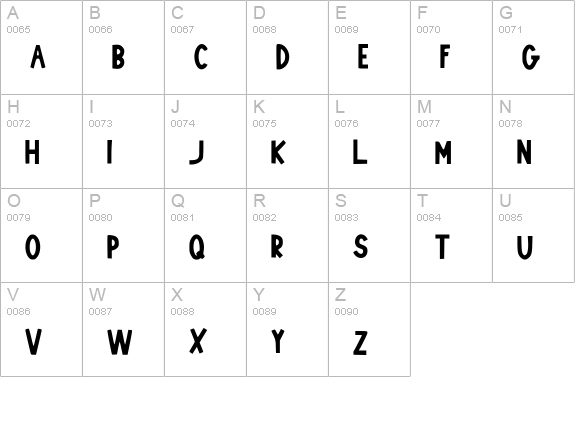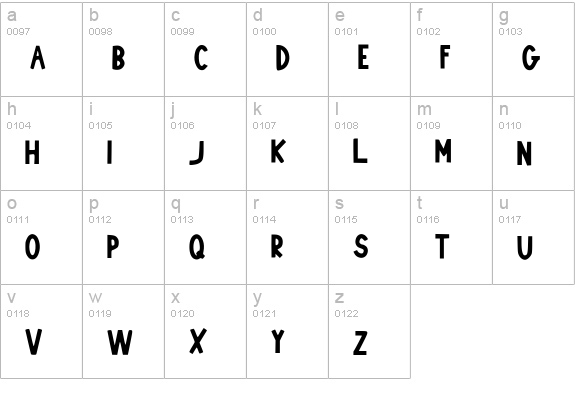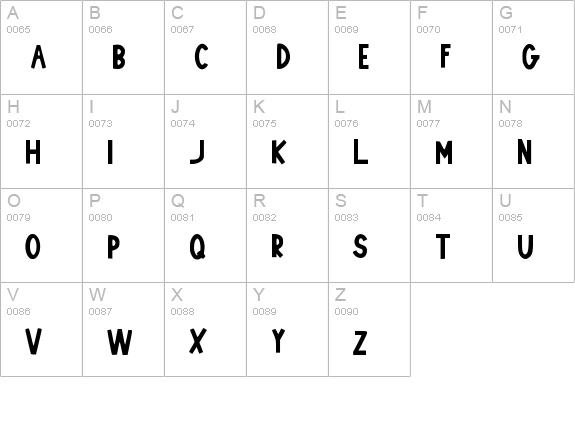
Fonty_McFonterson Font Details
Introducing Fonty_McFonterson, a delightful and versatile font that will bring a touch of style and sophistication to your creative projects. With its sleek and modern design, this font is perfect for everything from logo designs to branding materials, websites, and more. Fonty_McFonterson offers a wide range of uppercase and lowercase characters, as well as numerals, punctuation, and special symbols, ensuring that you have all the tools you need to bring your vision to life. Whether you're designing a sleek and professional corporate identity or aiming for a more playful and whimsical aesthetic, this font has got you covered. But what truly sets Fonty_McFonterson apart is that it is not only visually stunning, but also free! That's right, this exceptional font is freely available to download at FontsMarket.com. Now, you can elevate your design projects without breaking the bank. It's the perfect choice for budget-conscious designers, freelancers, and small businesses who want to make a big impact. The versatility of Fonty_McFonterson knows no bounds. It can effortlessly adapt to any design style, making it a must-have for both seasoned professionals and newcomers to the design world. Its clean and legible letterforms make it easily readable in both print and digital media, ensuring that your message is delivered with clarity and impact. So why wait? Download Fonty_McFonterson today from FontsMarket.com and take your design game to the next level. With its stunning aesthetics, wide range of characters, and free availability, this font is sure to become your go-to choice for all your design needs. Don't miss out on the opportunity to add a touch of elegance and professionalism to your projects. Embrace Fonty_McFonterson and let your creativity soar!